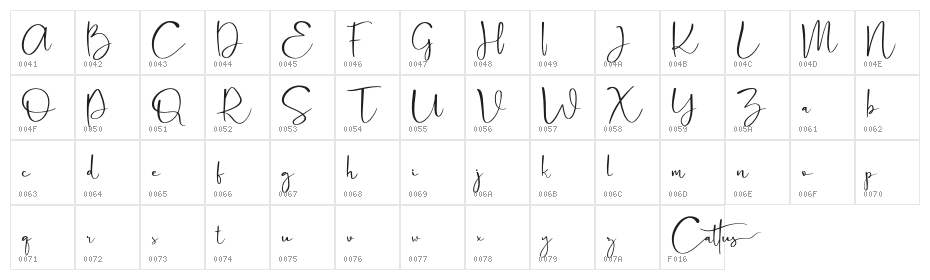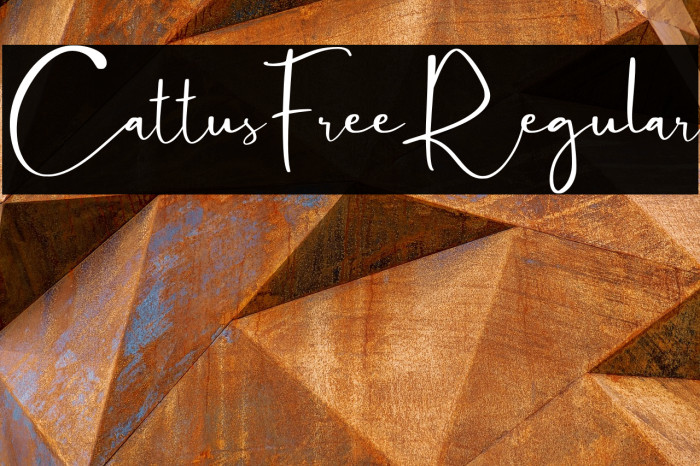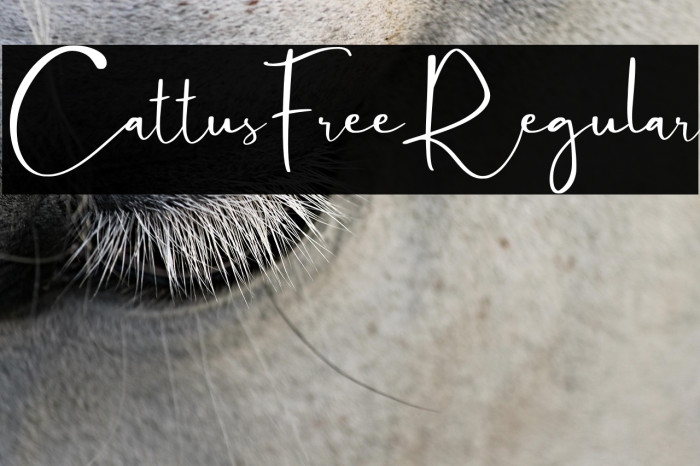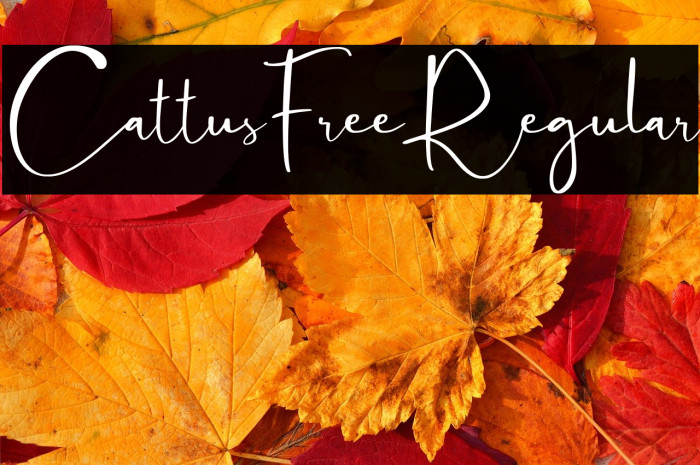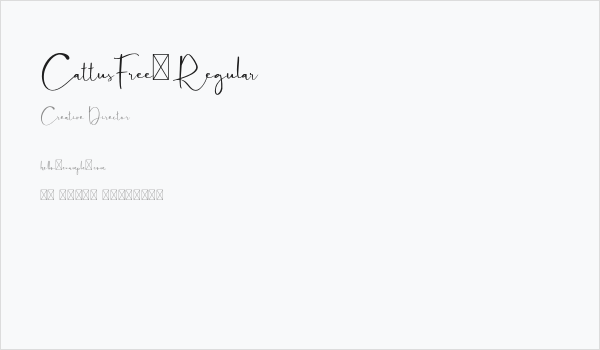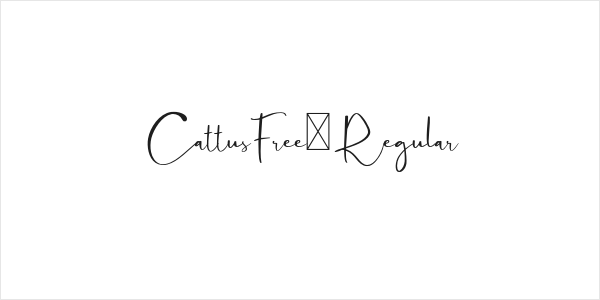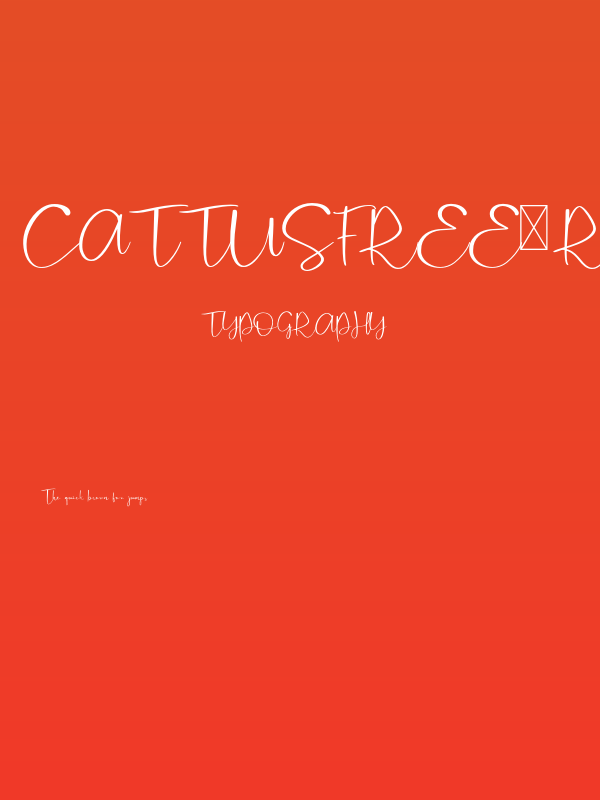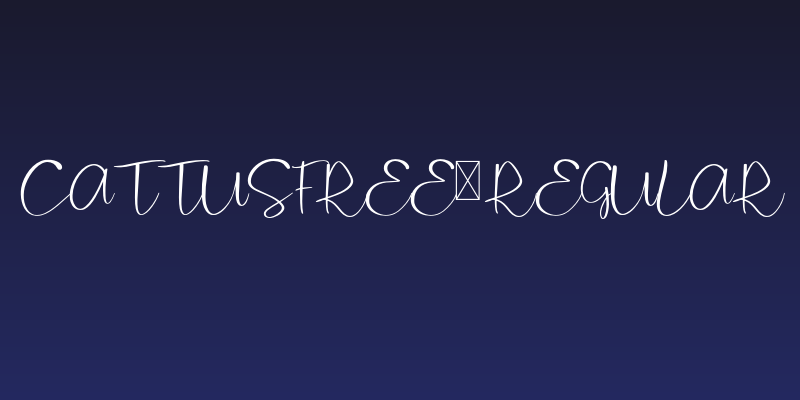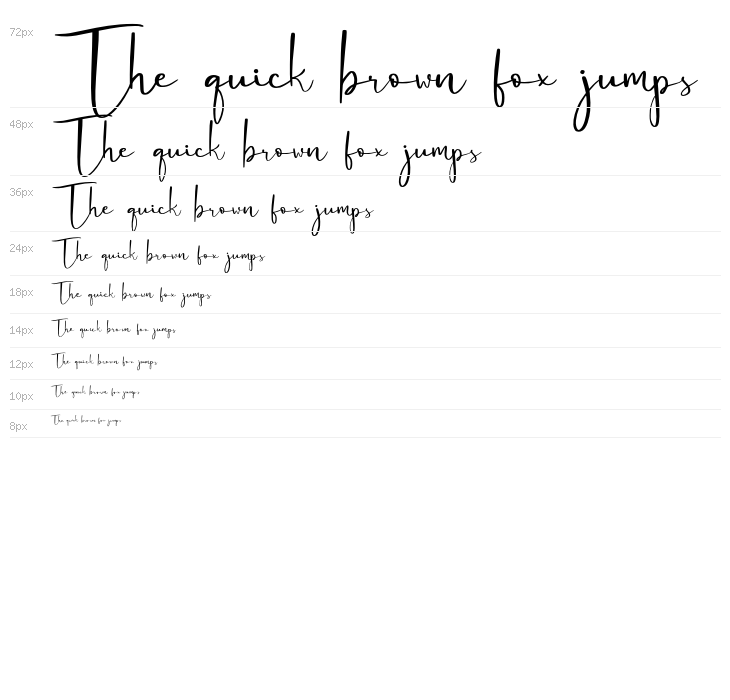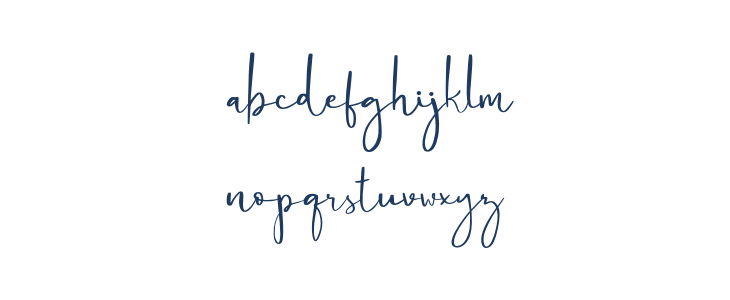
CattusFree-Regular Font
CattusFree-Regular Description
This font features a playful and elegant script style with a handwritten appearance. The letters are connected, giving a fluid and continuous look, while maintaining a clear readability. The uppercase characters are slightly more elaborate, with loops and swirls that add a decorative touch. The lowercase letters are simpler but maintain the same flowing style. The overall design is modern yet retains a classic charm, making it versatile for various design projects. The font's unique character shapes and smooth curves make it ideal for creative and artistic applications.
| Proposed Projects | Ideal for wedding invitations, greeting cards, logos, and branding materials that require a personal and artistic touch. |